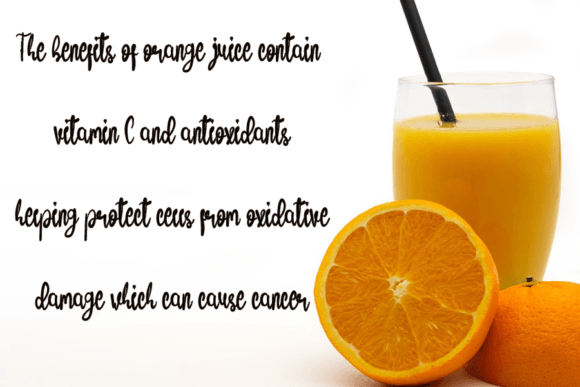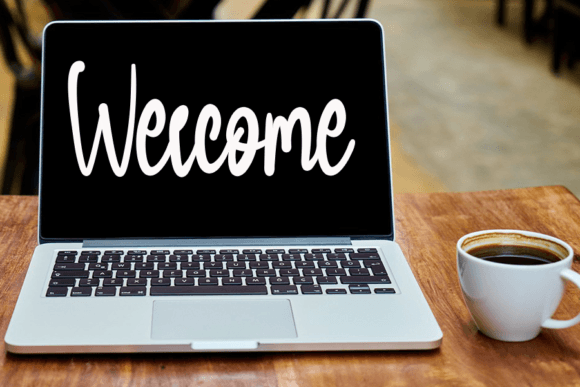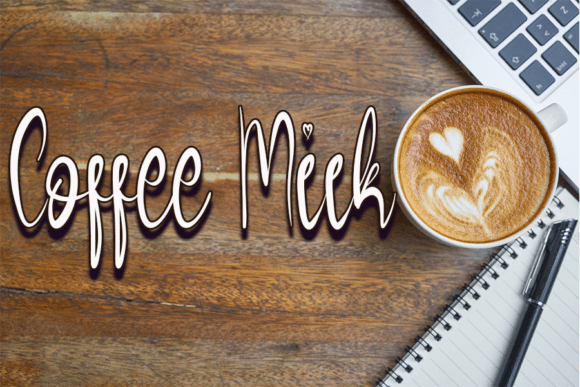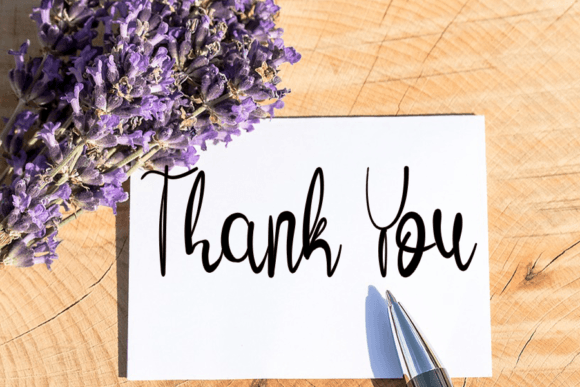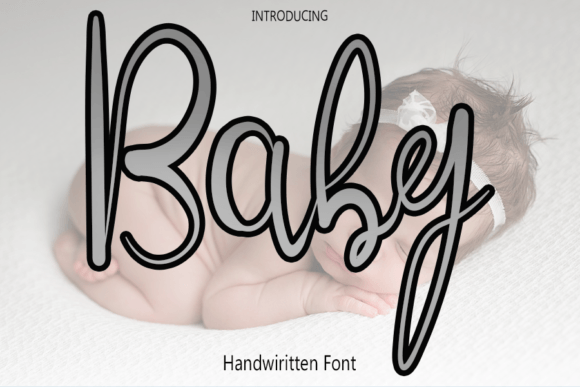
Baby Font: The Sweet and Friendly Handwritten Font for Your Design Needs
Baby Font is a charming and approachable handwritten font that has captured the hearts of designers and crafters alike. Its natural and unique style makes it an incredibly versatile font, suitable for a wide range of design projects. Whether you’re creating a whimsical logo, a playful greeting card, or a beautiful journal spread, Baby Font is the perfect choice to add a touch of sweetness and personality to your work.
The Characteristics of Baby Font
Baby Font boasts a distinctive handwritten style that exudes warmth and friendliness. Its soft, rounded edges and gentle curves create a soothing visual effect, making it perfect for designs that require a personal and approachable feel. The font’s unique characteristics include:
- Natural and organic feel
- Soft, rounded edges and gentle curves
- Unique and distinctive handwritten style
- Highly legible and easy to read
The Versatility of Baby Font
The beauty of Baby Font lies in its incredible versatility. Its adaptability makes it suitable for a wide range of design projects, from:
- Logos and branding materials: Create a unique and memorable logo that stands out from the crowd.
- Greeting cards and invitations: Add a personal touch to your cards and invitations with Baby Font’s warm and friendly style.
- Journaling and scrapbooking: Use Baby Font to add a decorative and artistic touch to your journal spreads and scrapbook pages.
- Social media graphics and posts: Create engaging and eye-catching social media graphics with Baby Font’s playful and approachable style.
Why Designers and Crafters Love Baby Font
Designers and crafters love Baby Font for its unique combination of style and versatility. Here are some reasons why:
- Ease of use: Baby Font is incredibly easy to use, even for those who are new to design or crafting.
- High-quality design: Baby Font is designed with high-quality craftsmanship in mind, ensuring that your designs look professional and polished.
- Endless creative possibilities: With Baby Font, the only limit is your imagination. Use it to create unique and imaginative designs that reflect your personal style.
Tips for Using Baby Font Effectively
To get the most out of Baby Font, here are some tips to keep in mind:
- Experiment with different colors and textures: Add depth and interest to your designs by experimenting with different colors and textures.
- Mix and match with other fonts: Combine Baby Font with other fonts to create unique and visually appealing typography.
- Play with font sizes and styles: Use different font sizes and styles to add visual hierarchy and emphasis to your designs.
Baby Font is a sweet and friendly handwritten font that is perfect for designers and crafters looking to add a touch of personality and whimsy to their work. Its natural and unique style makes it incredibly versatile, suitable for a wide range of design projects. With its ease of use, high-quality design, and endless creative possibilities, Baby Font is a must-have font for anyone looking to create beautiful and engaging designs.